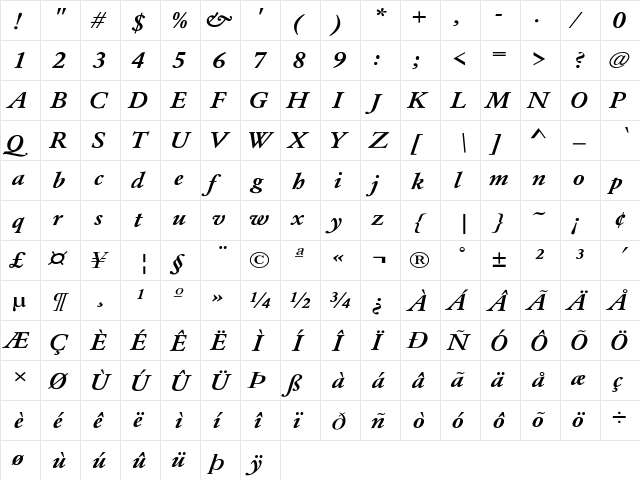
GaramondMediumExt-Normal-Italic Regular Font Preview
GaramondMediumExt-Normal-Italic Regular
GaramondMediumExt-Normal-Italic Regular Font Details
Design Context for GaramondMediumExt-Normal-Italic Typeface
GaramondMediumExt-Normal-Italic is a composed and adaptable typeface that performs quietly and consistently across a wide range of design contexts. Its italic angle brings a sense of urgency and motion to the letterforms.
Pro Tip: Use GaramondMediumExt-Normal-Italic for emphasis, pull quotes, and subheadings where its slanted energy can add rhythm to the layout.